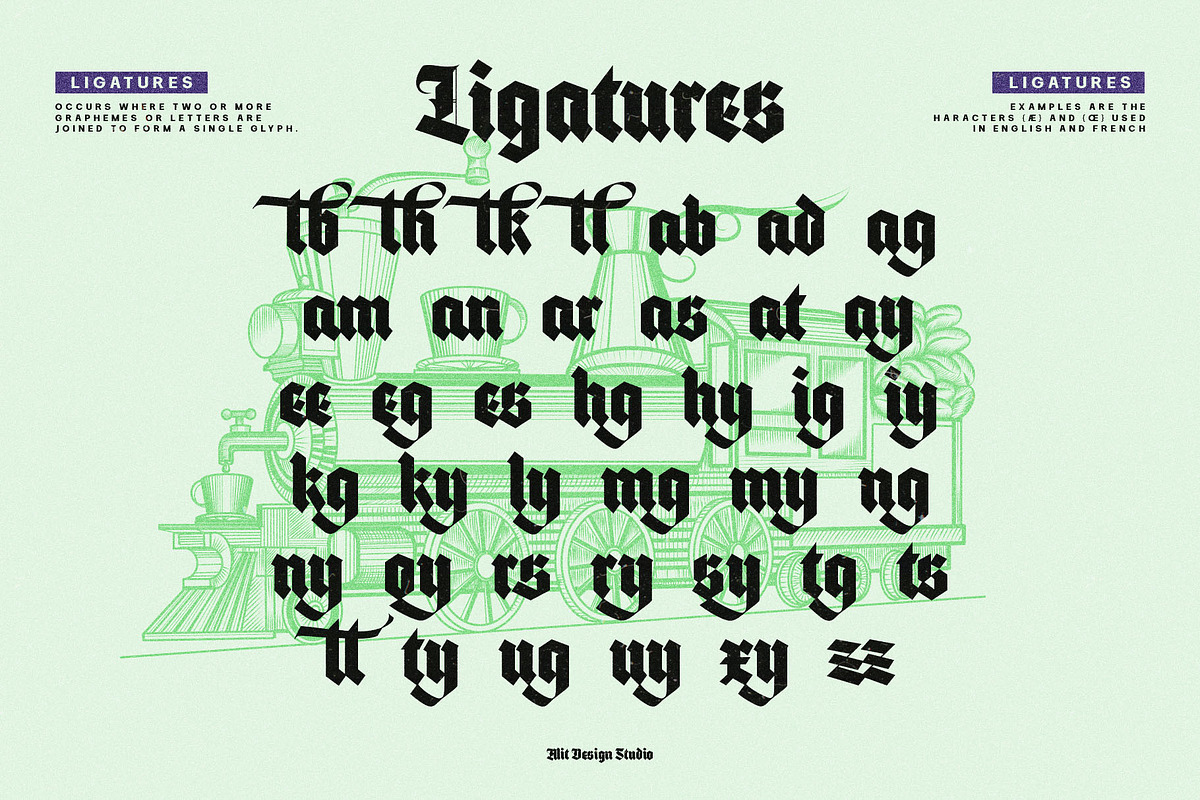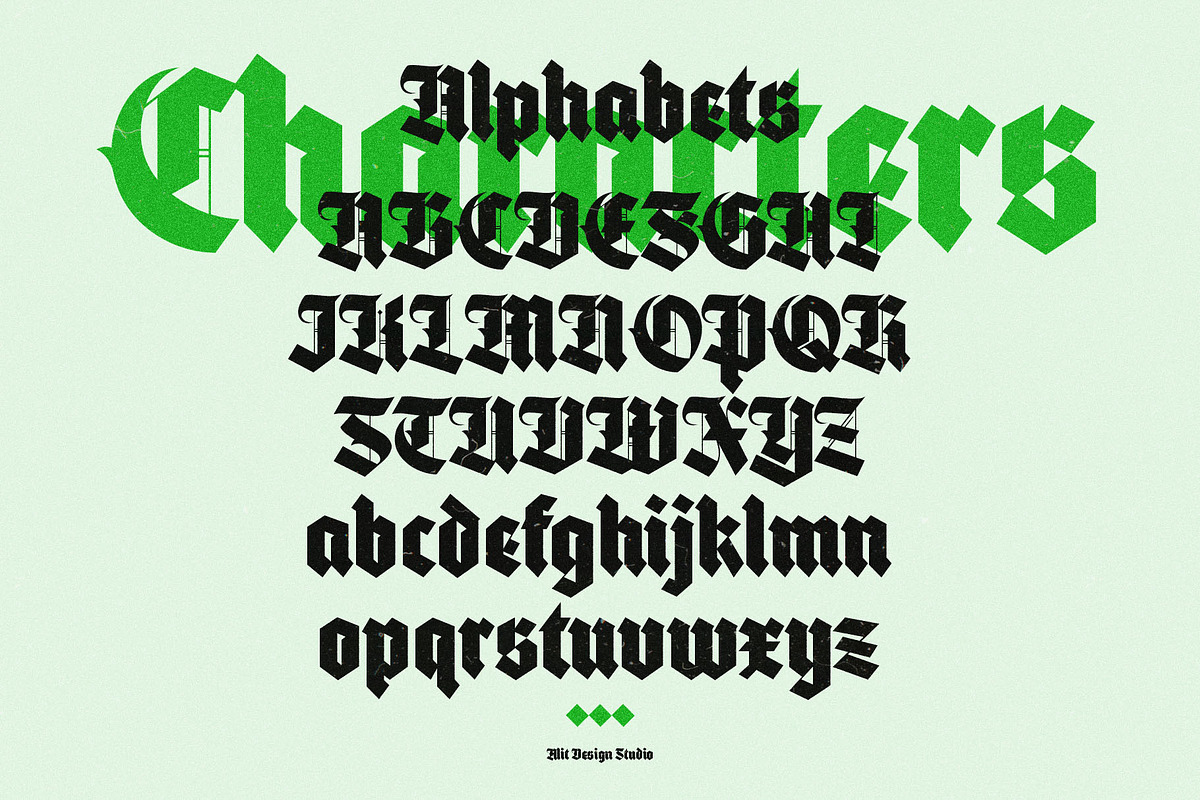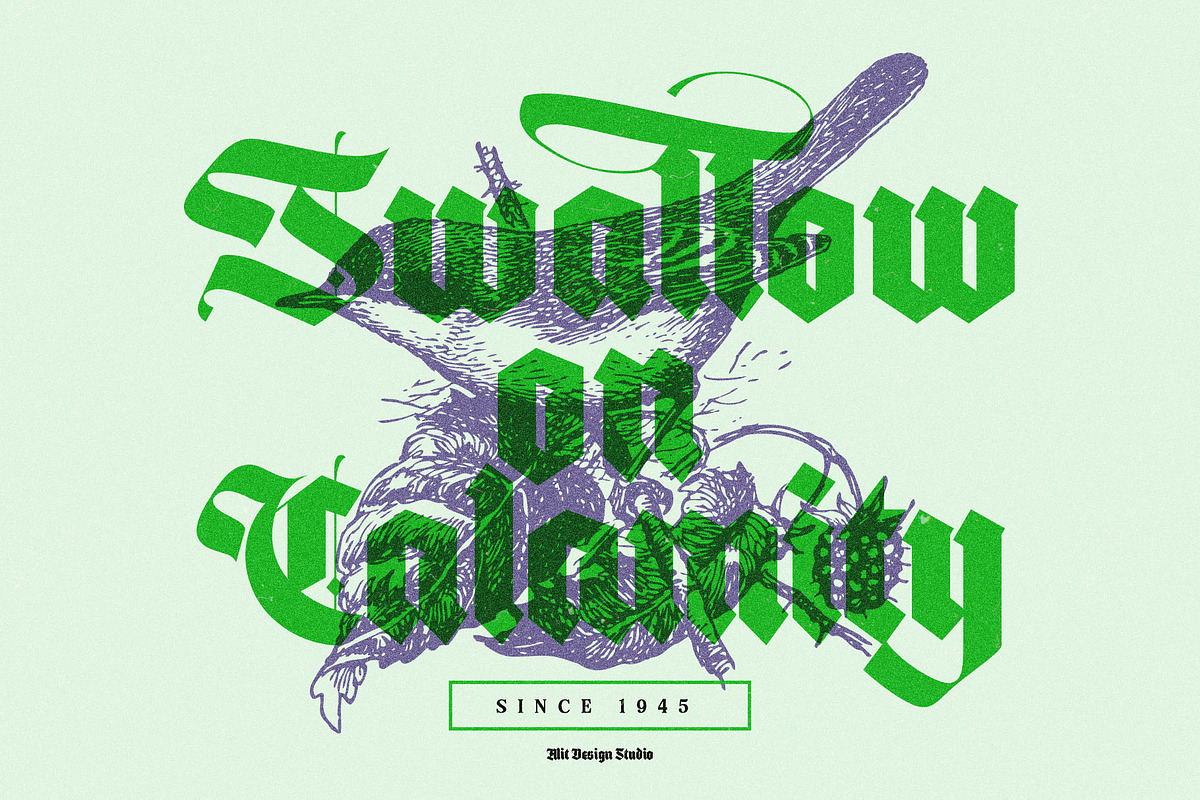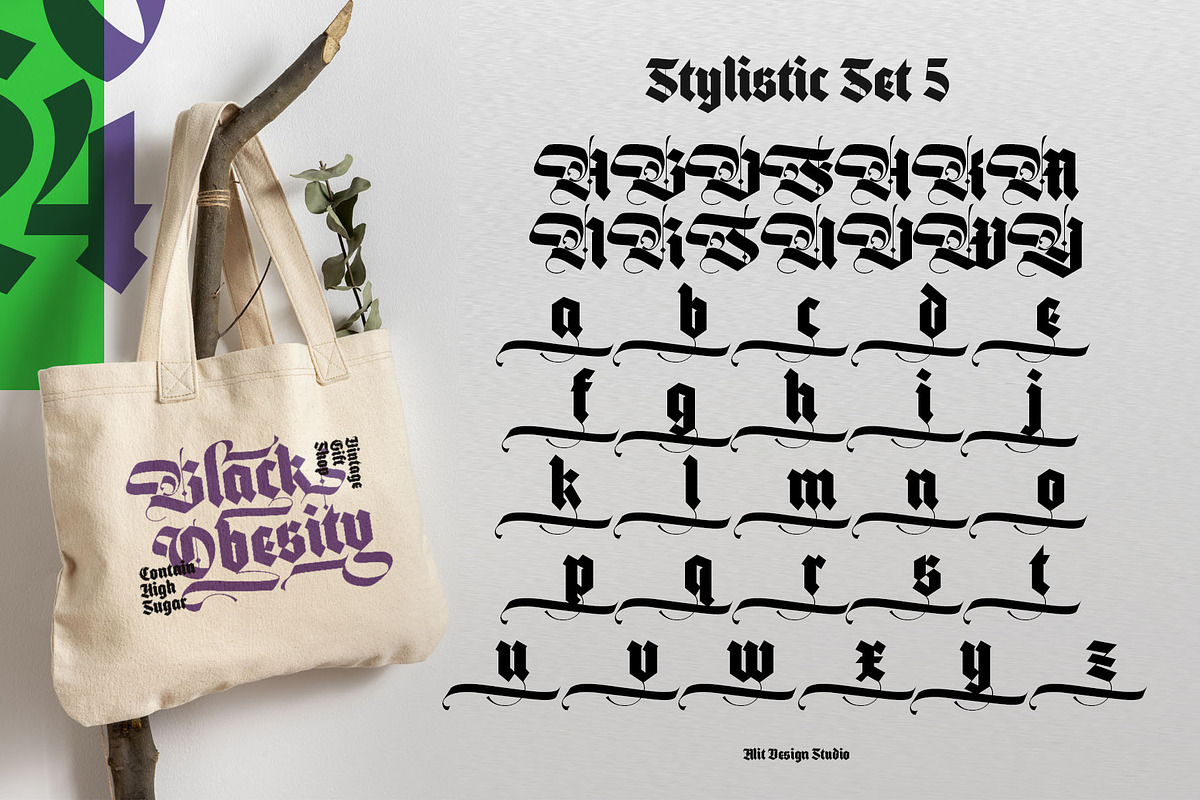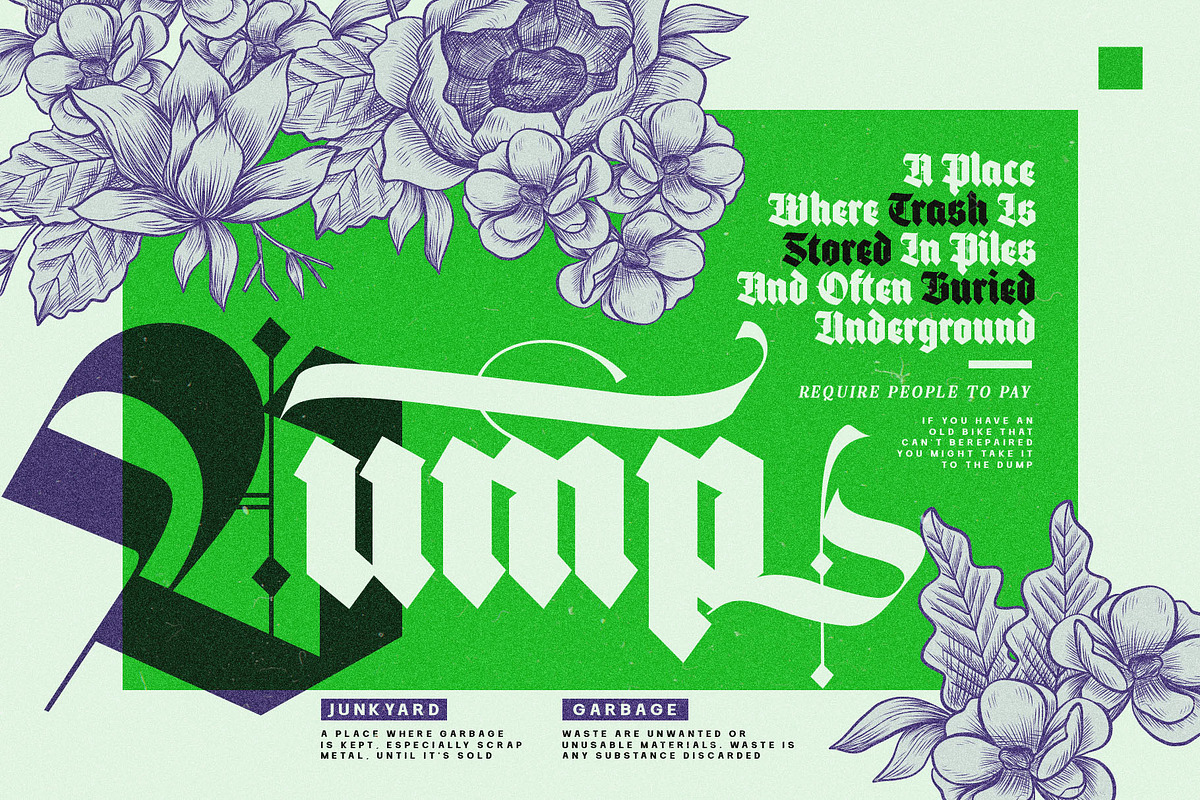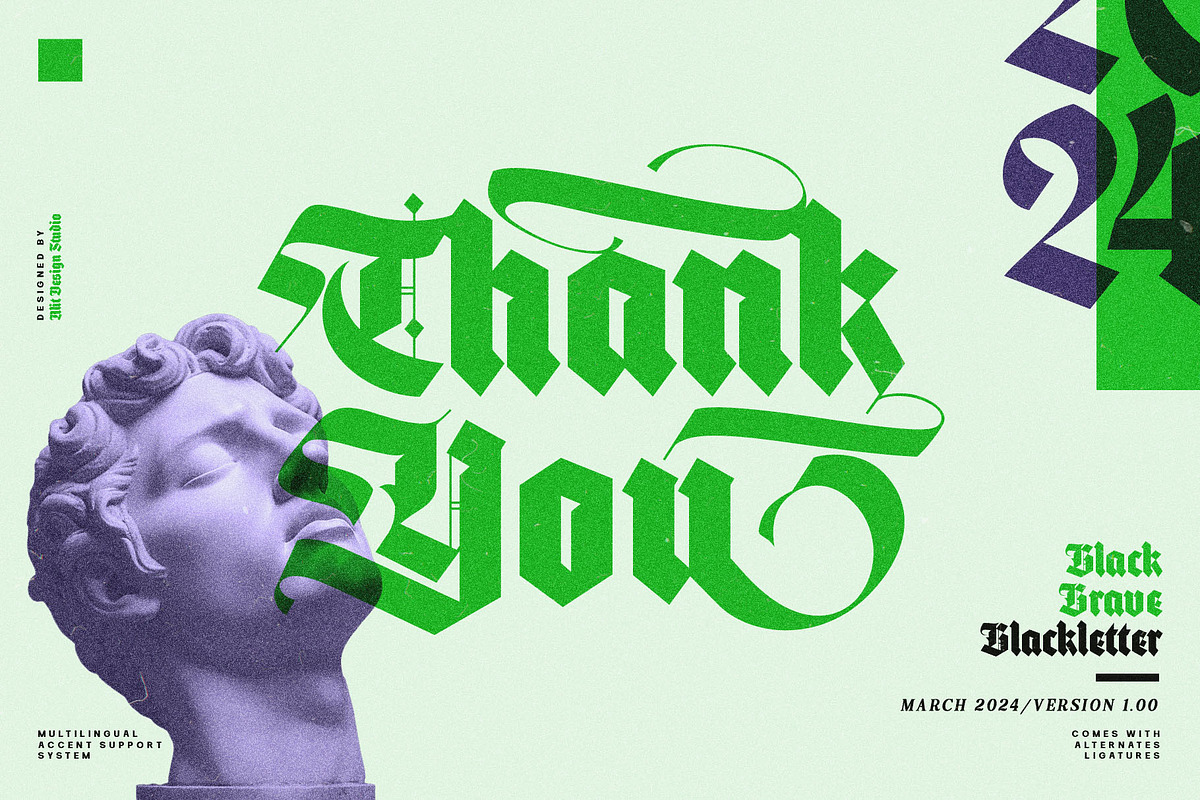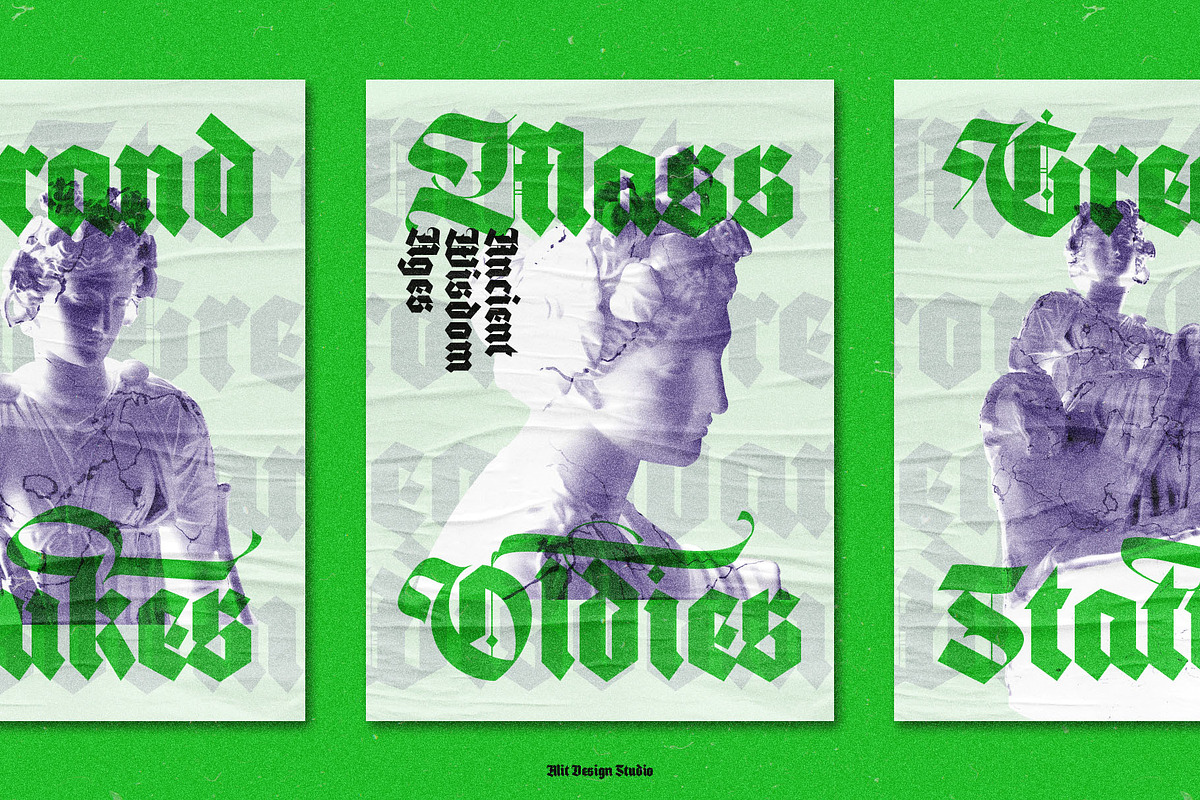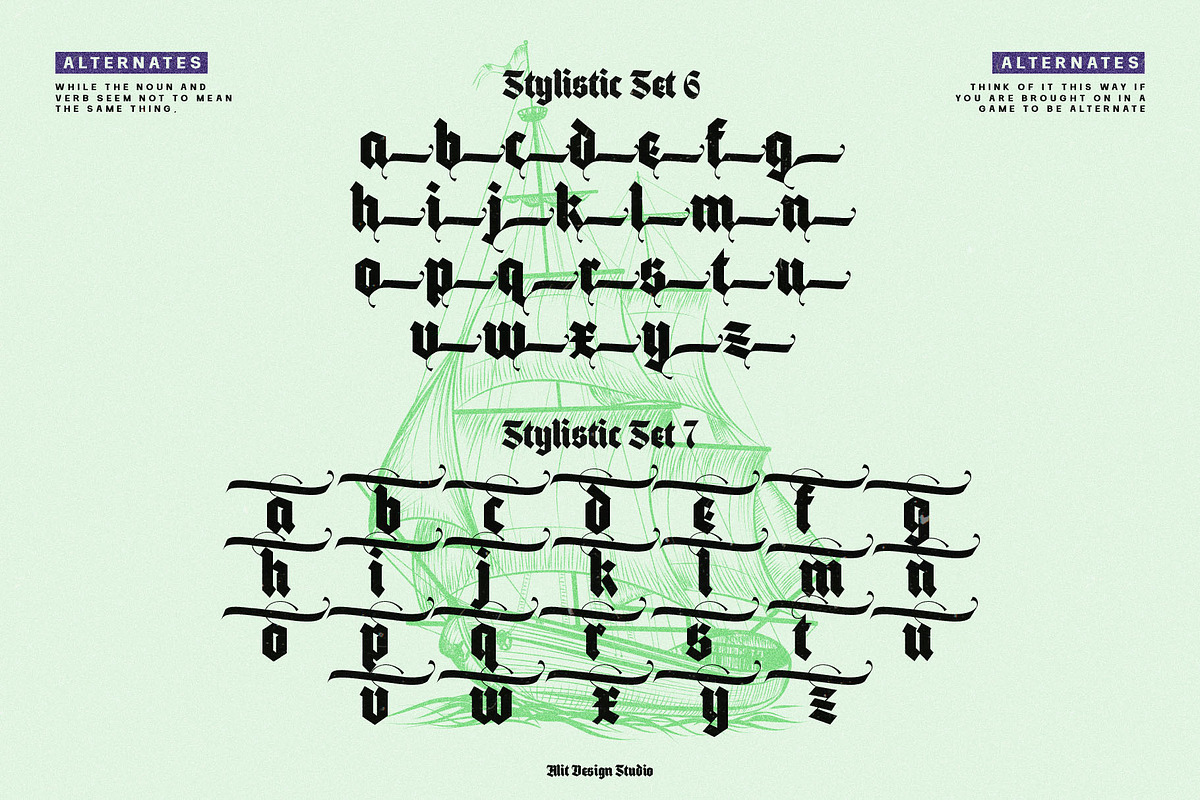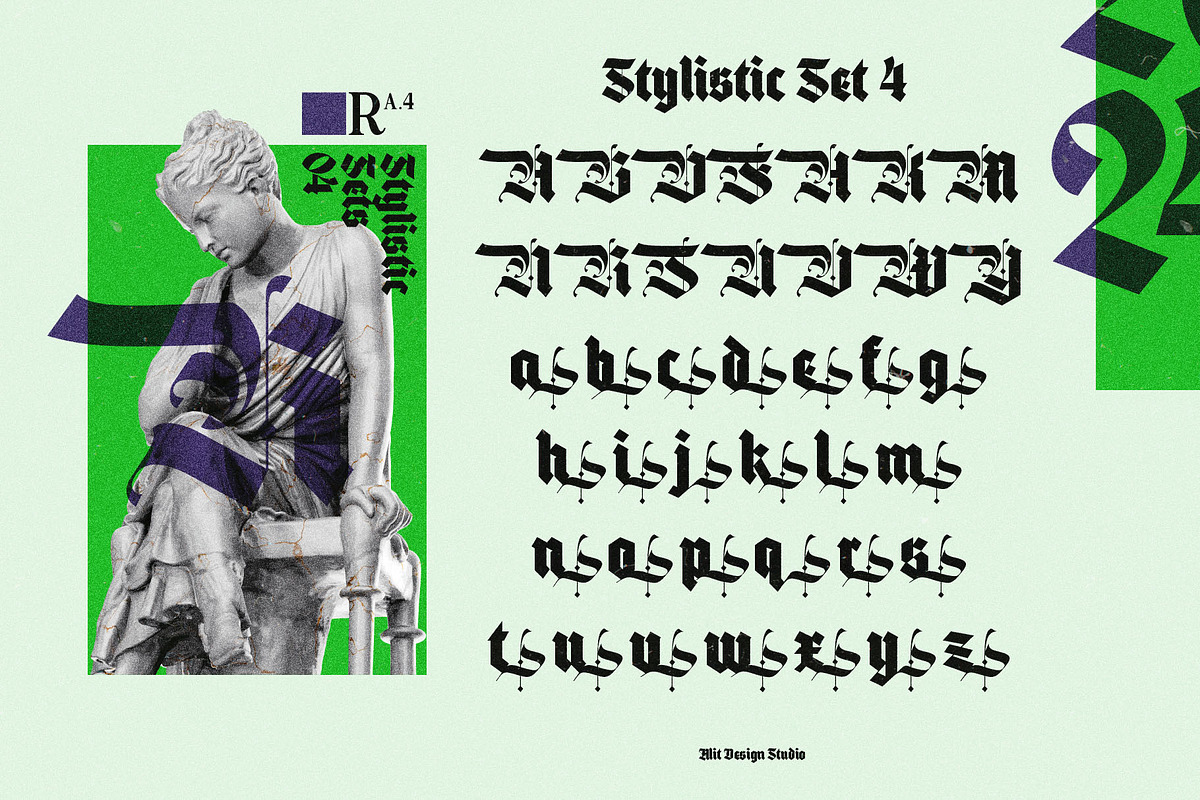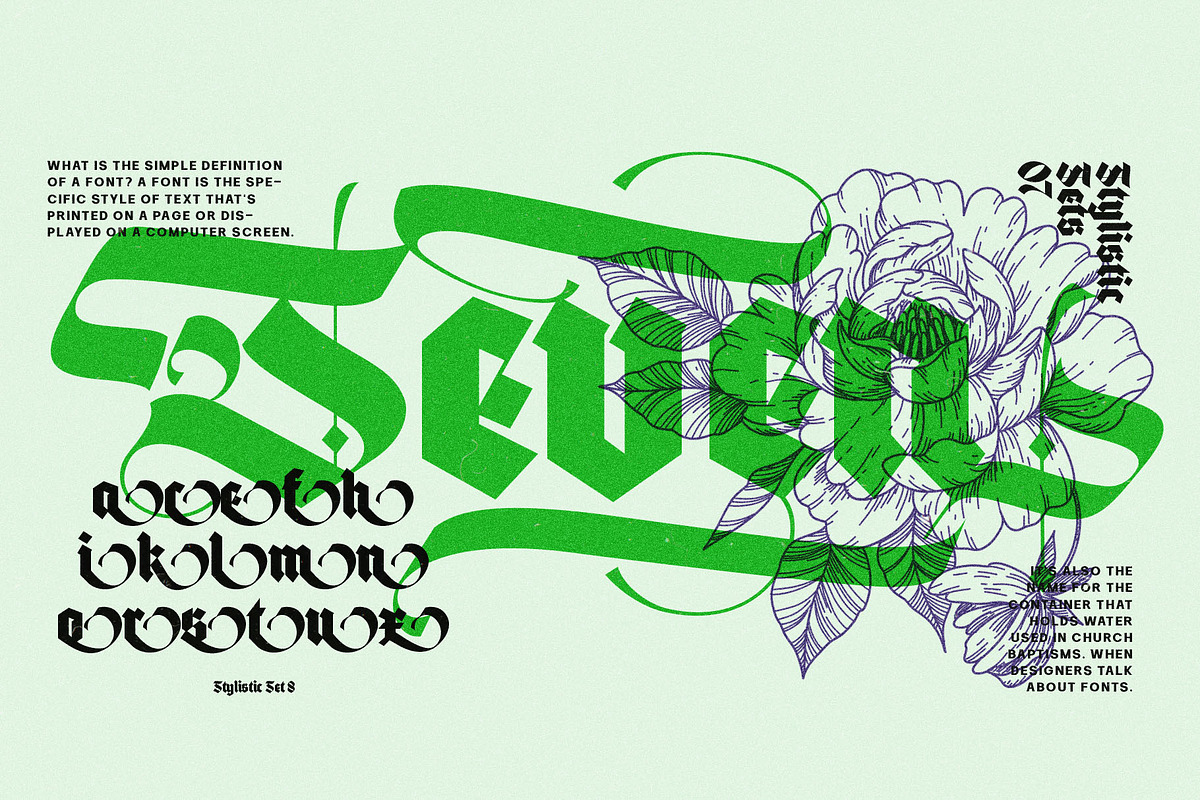
Black Brave Typeface
Introducing Black Brave - a bold and commanding blackletter font designed to make your text stand out with its striking presence. Inspired by medieval calligraphy and infused with a modern twist, Black Brave exudes strength, elegance, and a touch of vintage charm. With its intricate details, swashes, ligatures, and alternative characters, this font offers endless possibilities for creating captivating designs.
Bold Blackletter Design: The robust strokes and sharp angles of Black Brave give your text a powerful and authoritative appearance, perfect for making a bold statement.
Swashes and Ligatures: Enhance your typography with decorative swashes and seamlessly connected ligatures, adding flair and sophistication to your designs.
Alternatives: Explore various alternate characters to add versatility and customization to your projects. Experiment with different letterforms to find the perfect look for your design.
820 Character Glyphs: With a wide range of glyphs, including uppercase and lowercase letters, numerals, punctuation marks, and special characters, Black Brave offers extensive language support and versatility for various design needs.
Ideal Usage:
- Graphic Design: Use Black Brave to create eye-catching posters, banners, and advertisements that demand attention.
- Branding: Make your brand identity memorable and distinctive with Black Brave's bold and unique typography.
- Editorial Design: Add a touch of vintage elegance to magazine layouts, book covers, and editorial spreads.
- Packaging: Elevate product packaging with Black Brave's striking blackletter style, creating a premium and timeless look.
Whether you're designing for print or digital media, Black Brave is sure to leave a lasting impression with its bold aesthetic and rich features. Embrace the boldness of Black Brave and unleash your creativity today!